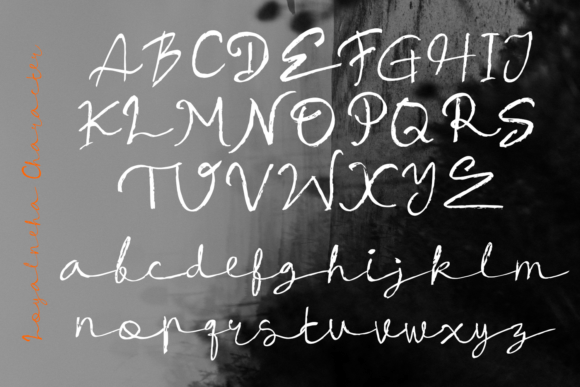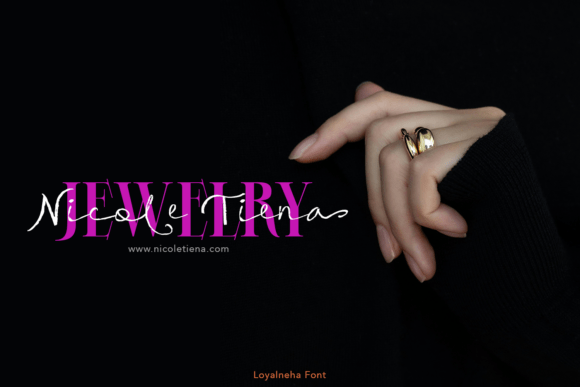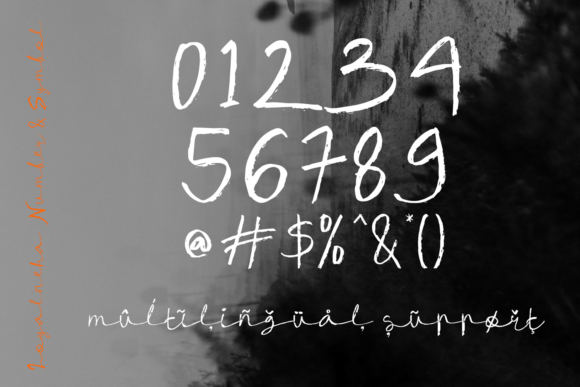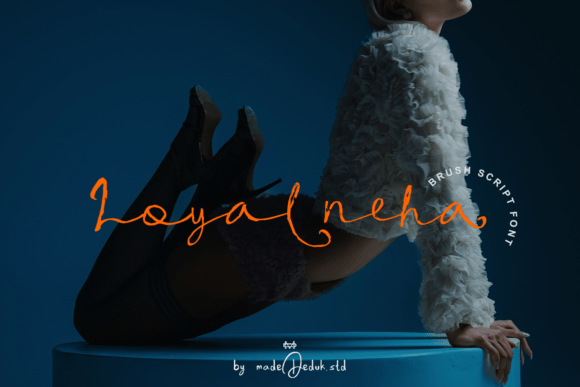
Introduction to Loyalneha Font
Really excited to introduce Loyalneha is a realistic handwritten font to give an incredible impression for all your project design come with ligatures and Alternative to make everything look realistic handmade handwritten.
Really excited to introduce Loyalneha is a realistic handwritten font to give an incredible impression for all your project design come with ligatures and Alternative to make everything look realistic
Key Features of Loyalneha Font
Why Choose Loyalneha Font?
Loyalneha Font offers exceptional quality and versatility, making it a valuable addition to your design toolkit. Whether you’re creating for personal projects or commercial use, Loyalneha Font delivers professional results.